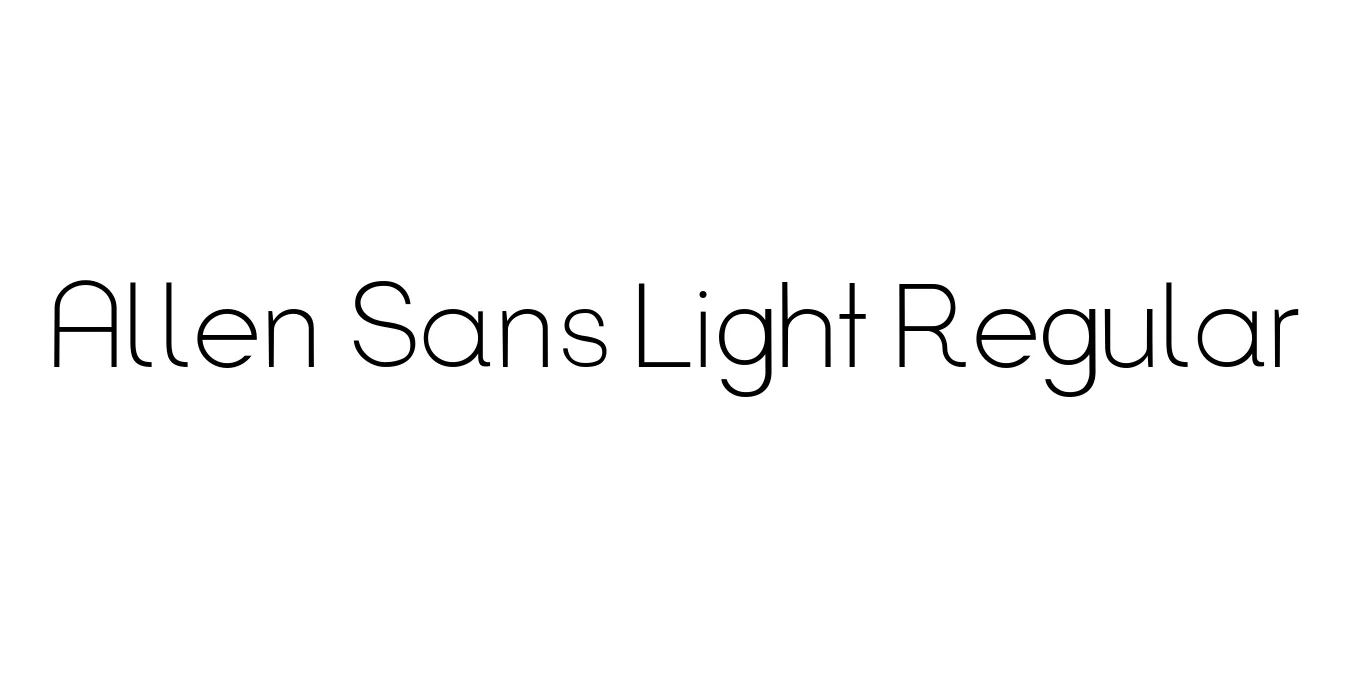
Allen Sans Light Regular
Designed by Allen Zuk
| Font Name | Allen Sans Light |
| Designer | Allen Zuk |
| Similar Fonts | Helvetica Neue Light, Montserrat Light, Lato Light, Futura Light |
Allen Sans Light Regular is a contemporary sans-serif typeface characterized by its minimalist aesthetic and geometric precision. Designed with clarity in mind, this font features high-legibility strokes and generous letter spacing, which makes it an excellent choice for modern digital interfaces and print media alike. Its thin weight conveys a sense of elegance and professionalism, allowing for a clean visual hierarchy in complex layouts.
Throughout its development, the focus remained on creating a versatile typographic tool that balances aesthetic appeal with functional performance. The Allen Sans family is often praised for its ability to remain sharp and readable even at smaller point sizes, making it a favorite among graphic designers for branding projects, editorial designs, and corporate identities that require a sophisticated, airy feel.
Allen Sans Light Regular Best Uses
Ideal for creating sleek, high-end brand marks.
Great for clean, airy headings and readable body text.
Perfect for magazines and fashion lookbooks.
Ensures clarity and a modern look for user interfaces.
Adds a sophisticated touch to business cards and invitations.